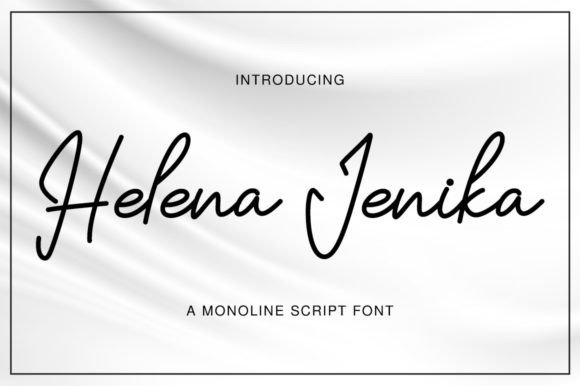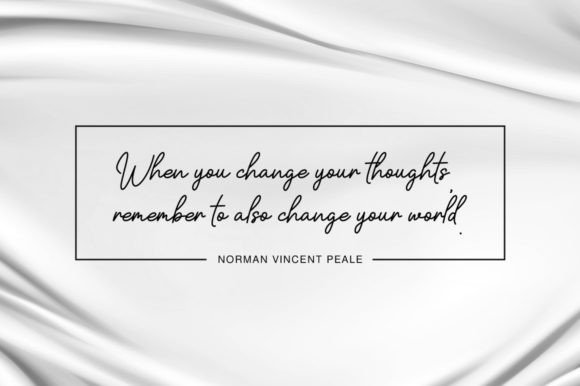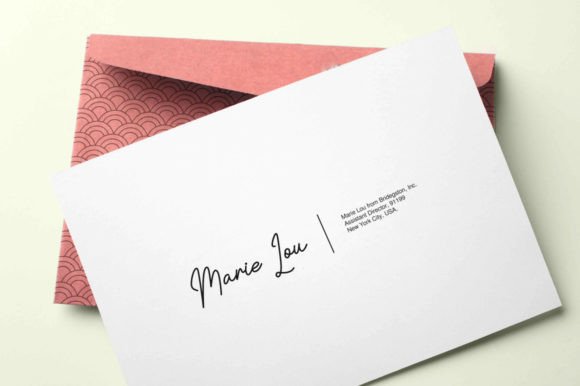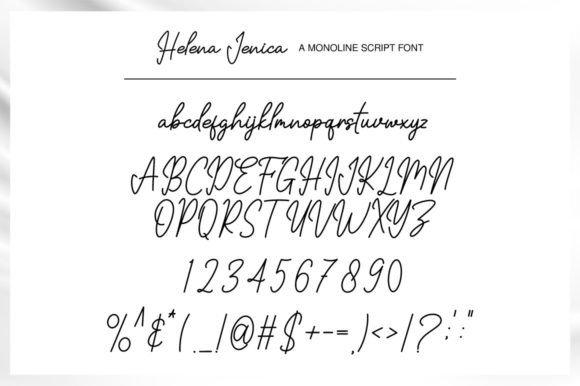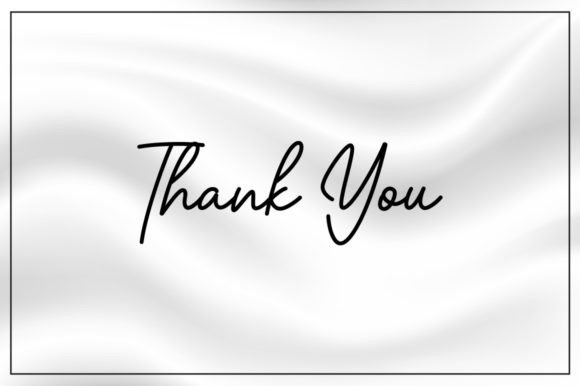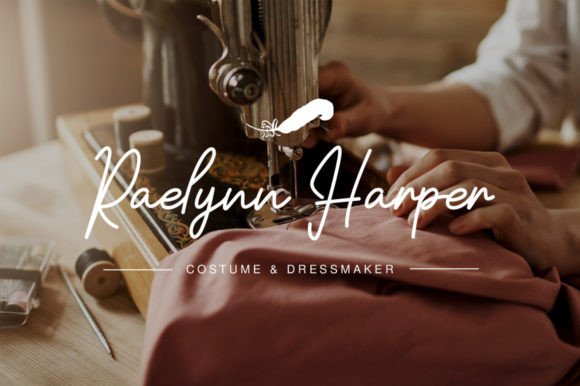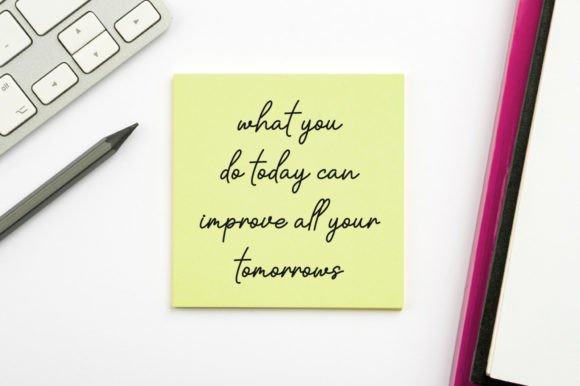
Helena Jenika Font
About Helena Jenika Font
Introducing Helena Jenika Font: The Essence of Elegance and Joy
Experience the epitome of elegance and joy with Helena Jenika Font. This delicate handwritten typeface is a celebration of grace and sophistication, making it the perfect choice for those special projects that demand a romantic and personalized touch. Whether you’re crafting wedding invitations, heartfelt cards, or any design that requires a touch of romance, Helena Jenika Font is your ideal companion.
**Elegance in Every Stroke:**
Helena Jenika Font embodies pure elegance. Its handwritten script style is delicately crafted, exuding a sense of grace and refinement that elevates your projects to a new level of sophistication. With Helena Jenika, your designs will radiate a timeless beauty.
**Dainty and Delightful:**
What sets Helena Jenika apart is its dainty and delightful aesthetic. This font captures the essence of joy and celebration, making it a perfect choice for projects that require a touch of whimsy and charm. Each character is meticulously designed to convey a sense of light-hearted beauty.
**Wedding Magic:**
For wedding invitations, Helena Jenika Font is a dream come true. It adds an air of romance and personalization that’s essential for such special occasions. Whether you’re designing invitations, save-the-date cards, or wedding programs, this font ensures that every detail feels as enchanting as the love story it represents.
**Heartfelt Greeting Cards:**
When it comes to greeting cards, Helena Jenika Font shines with its ability to convey emotions with elegance. Whether you’re crafting birthday wishes, thank-you notes, or anniversary sentiments, this font adds a touch of sincerity and beauty to your messages.
**Timeless Personalization:**
Helena Jenika Font is not just a typeface; it’s a symbol of timeless personalization. Its graceful design allows you to create customized monograms and logos that exude sophistication and individuality, perfect for businesses or personal branding.
**Captivating Typography:**
Typography plays a crucial role in design, and Helena Jenika Font excels at capturing attention and holding it. Whether you’re working on posters, signage, or promotional materials, this font ensures your message is conveyed with an irresistible elegance that captivates your audience.
In conclusion, Helena Jenika Font is more than just a font; it’s a work of art that adds an exquisite touch of elegance and joy to your projects. Its dainty and joyful nature makes it an ideal choice for wedding invitations, greeting cards, and any design that deserves a romantic and personalized flourish. Embrace the timeless beauty of Helena Jenika Font and watch your creations come to life with grace and sophistication. Make Helena Jenika your font of choice and infuse your designs with the enchantment of handcrafted elegance!